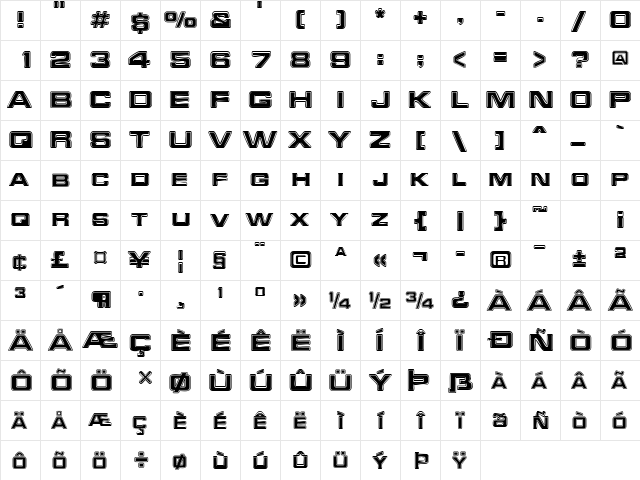
PastDueSCapsSSK Regular
Design Context for PastDueSCapsSSK Typeface
PastDueSCapsSSK is a composed and adaptable typeface that performs quietly and consistently across a wide range of design contexts.